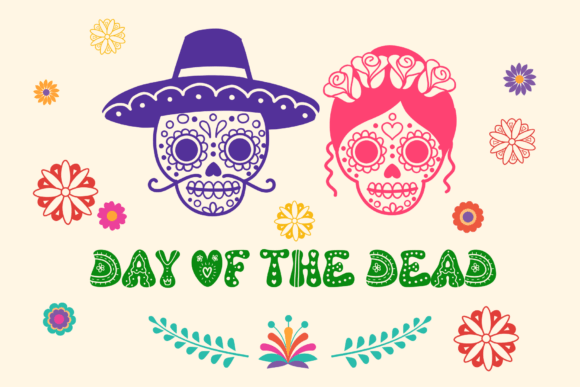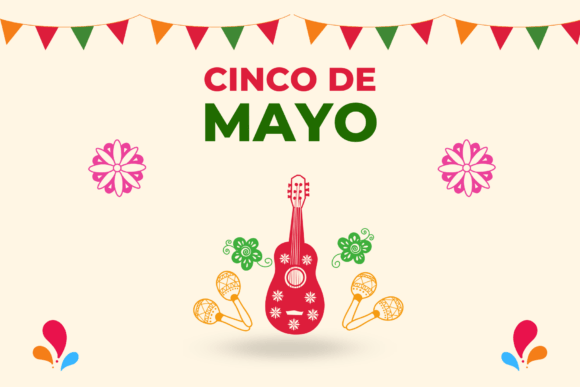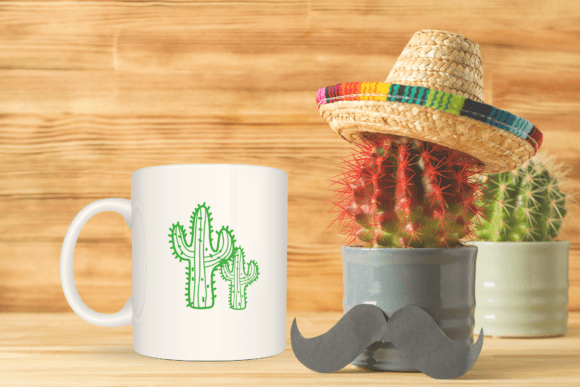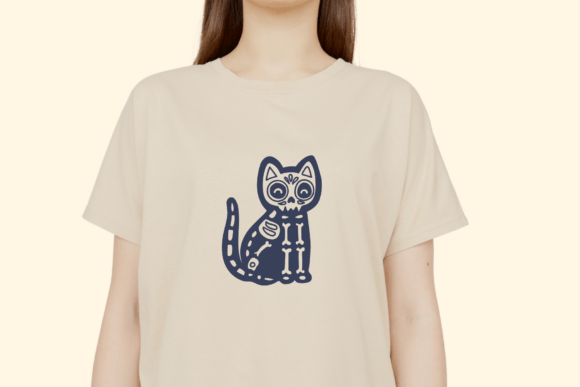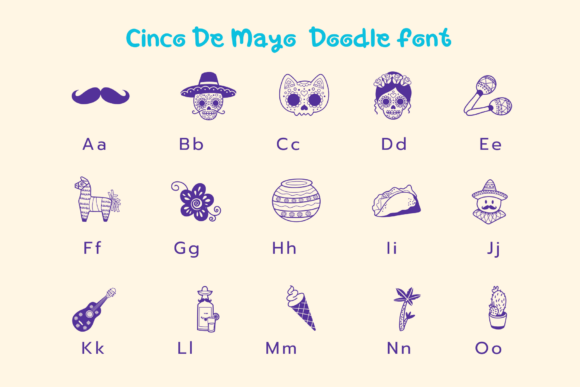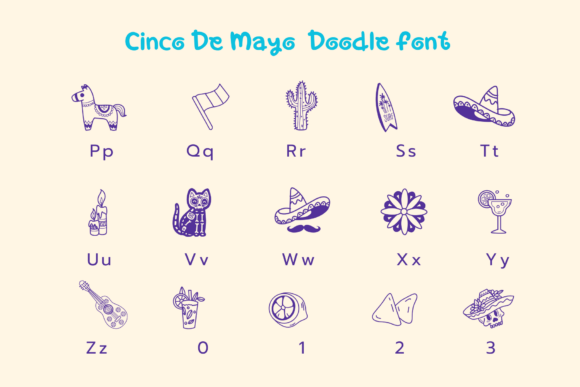
Cinco De Mayo Font: Add a Fiesta Touch to Your Designs
Cinco De Mayo, a holiday commemorating the Mexican army’s victory over French forces in 1862, has become a popular celebration around the world. It’s a time for vibrant colors, lively music, and festive decorations. If you’re a designer or crafter looking to add a touch of this fiesta spirit to your projects, the Cinco De Mayo font is an excellent choice. This fun dingbat font features a wide range of festive elements that will make your designs stand out.
What is the Cinco De Mayo Font?
The Cinco De Mayo font is a unique and playful dingbat font that captures the essence of the Cinco De Mayo celebration. It’s packed with cheerful symbols, from sombreros to mariachi instruments, that will add a burst of energy and excitement to your designs. Whether you’re creating party invitations, themed decorations, or social media graphics, this font is perfect for adding a touch of whimsy and fun.
Features of the Cinco De Mayo Font
This festive font comes with a wide range of features that make it perfect for designers and crafters. Some of its key features include:
- Festive symbols: The font features a wide range of festive symbols, including sombreros, mariachi instruments, piñatas, and more.
- Playful design: The font has a playful and whimsical design that’s perfect for adding a touch of fun to your projects.
- Dingbat font: The font is a dingbat font, which means it’s made up of symbols and icons rather than traditional letters and numbers.
- Easily customizable: The font is easily customizable, allowing you to adjust the size, color, and style to fit your design needs.
Uses for the Cinco De Mayo Font
The Cinco De Mayo font is perfect for a wide range of design projects, including:
- Party invitations: Add a touch of fiesta spirit to your party invitations with this fun and festive font.
- Themed decorations: Use the font to create themed decorations, such as banners, garlands, and signs.
- Social media graphics: Add a burst of energy and excitement to your social media graphics with this playful font.
- Craft projects: Use the font to add a touch of whimsy and fun to your craft projects, such as scrapbooking and card making.
Tips for Using the Cinco De Mayo Font
Here are some tips for using the Cinco De Mayo font in your designs:
- Mix and match: Mix and match different symbols and icons to create a unique and eye-catching design.
- Experiment with colors: Experiment with different colors and color combinations to add depth and interest to your design.
- Keep it simple: Don’t be afraid to keep it simple and use a single symbol or icon as a focal point in your design.
- Have fun: Most importantly, have fun and be creative with the font!
The Cinco De Mayo font is a fun and festive dingbat font that’s perfect for adding a touch of fiesta spirit to your designs. With its wide range of festive symbols and playful design, it’s perfect for a wide range of design projects, from party invitations to themed decorations. Whether you’re a designer or crafter, this font is sure to inspire your creativity and add a burst of energy and excitement to your projects.